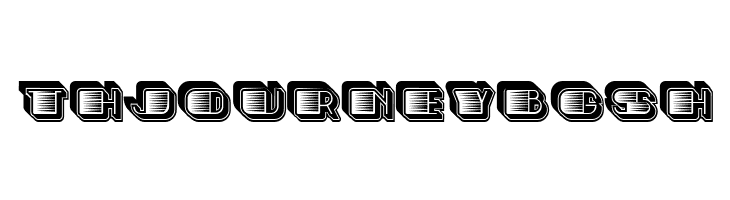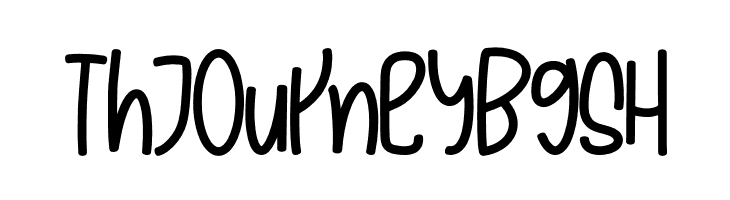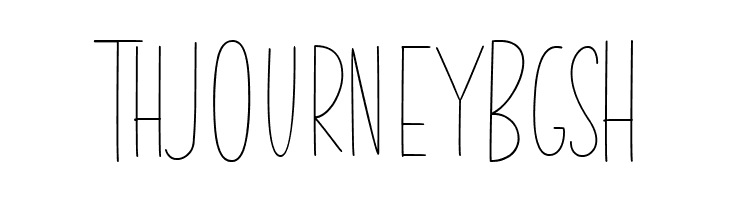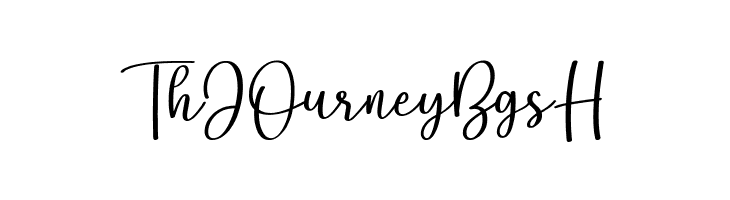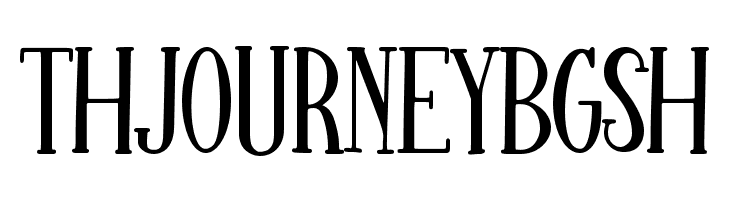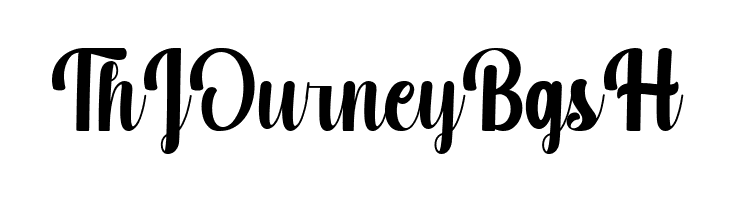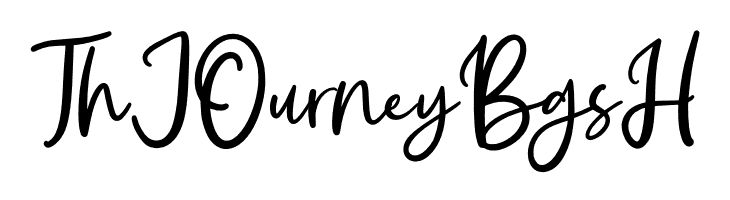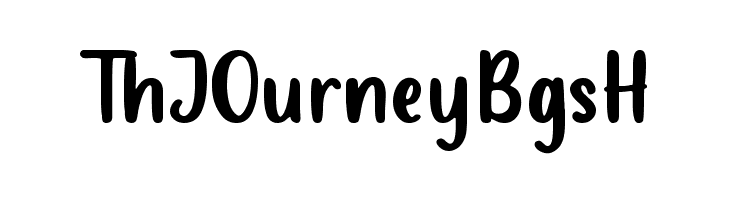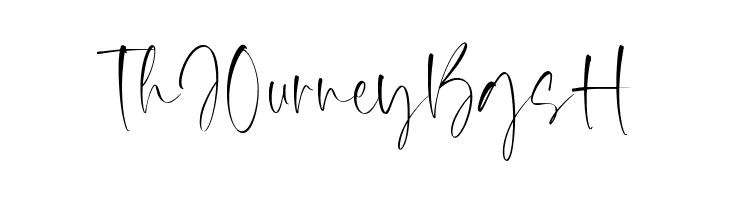
A playful and elegant handwritten font with fluid, connected letterforms.
A modern, ultra-thin, and elongated font with a minimalist design.
A bold, expressive script font with flowing, cursive letterforms and high contrast strokes.
A playful, handwritten font with rounded edges and a casual style.
Elegant, airy handwritten script with tall, narrow forms.
A playful, rounded font with a bold and friendly appearance.
A tall, elegant serif font with high contrast and refined style.
A bold, futuristic font with a 3D effect and dynamic inner detailing.
A cursive, handwritten-style font with elegant, flowing strokes.